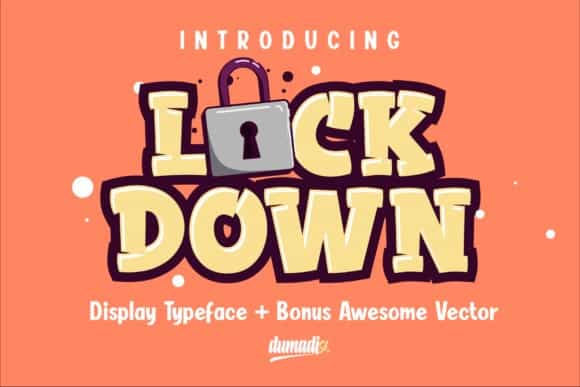
Lockdown Display Font
Lockdown Display Font is a brand new font, playfully based on the Latin Typeface. This will give your design an more playful feeling. Just have fun, it’s your world, whatever you wanna do. There’s no mistakes, just happy accidents. It is design and shared by Dumadi. It’s embodies fun, quirkiness and authenticity. This charming display font will turn any creative idea into a true standout.